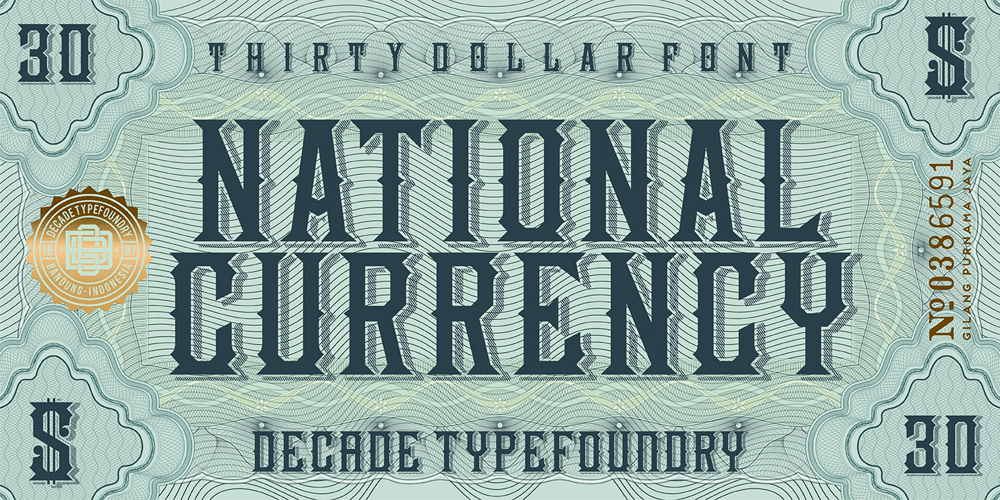
National Currency
National Currency Font Family was designed by Gilang Purnama Jaya and published by Decade Typefoundry. National Currency contains 3 styles and family package options. This font was inspired by lettering found on old stock certificate on the 19th century and comes with two guilloche borders, which makes national currency very useful.